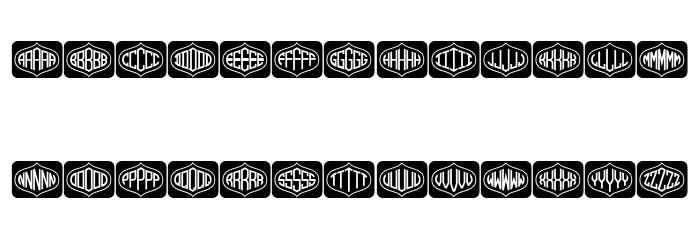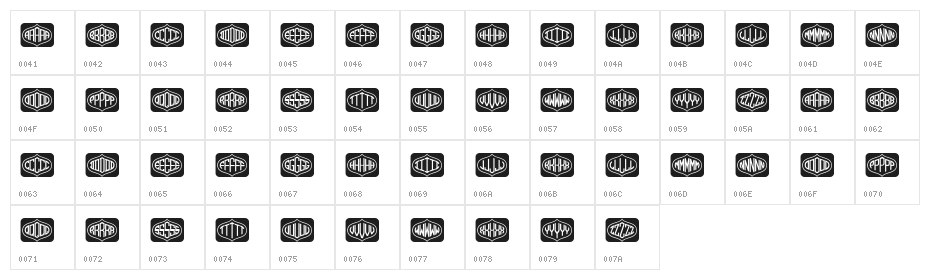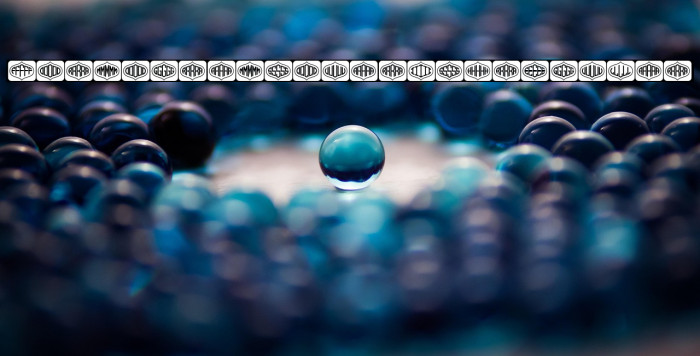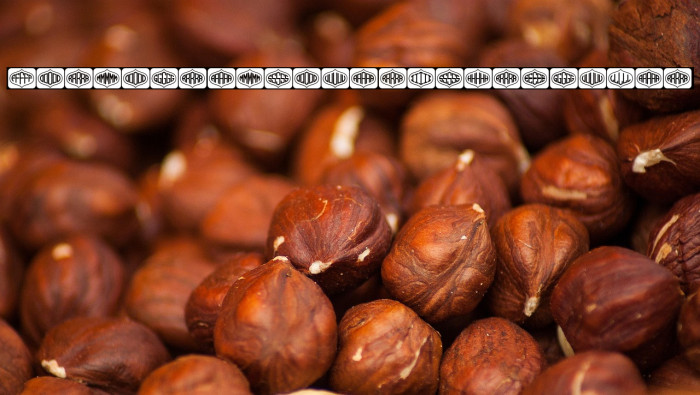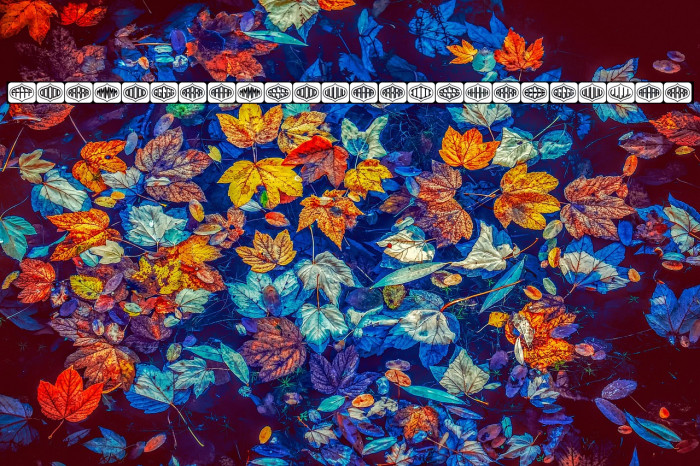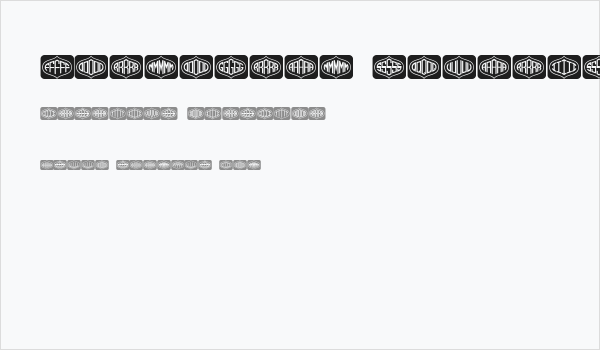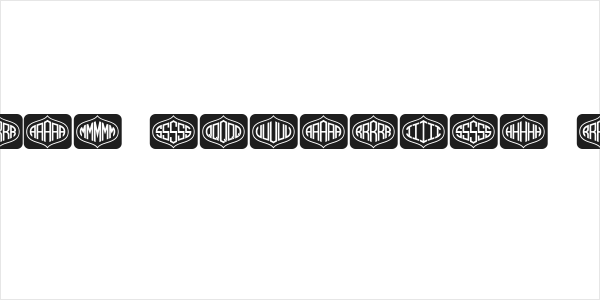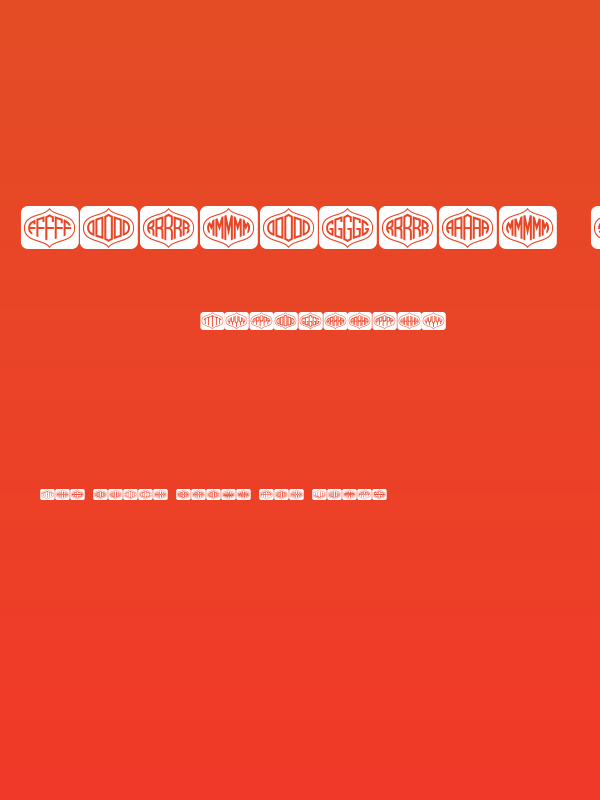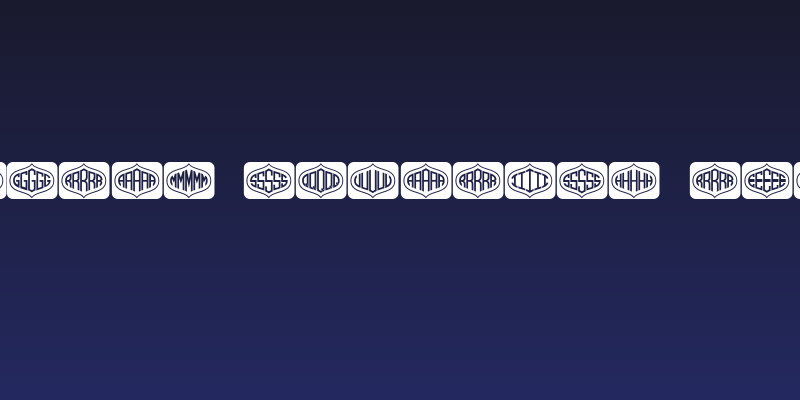
Formogram Squarish Regular Font
Formogram Squarish Regular Description
This font features a unique geometric design with each character enclosed within a rounded square border. The letters are stylized with a futuristic and digital appearance, characterized by straight lines and angular shapes. The consistent use of the enclosing shape gives it a uniform and cohesive look, making it stand out as a decorative typeface. The characters are evenly spaced within their borders, providing a balanced and structured aesthetic. This font is ideal for projects that require a modern and tech-inspired feel, offering a distinctive visual impact.